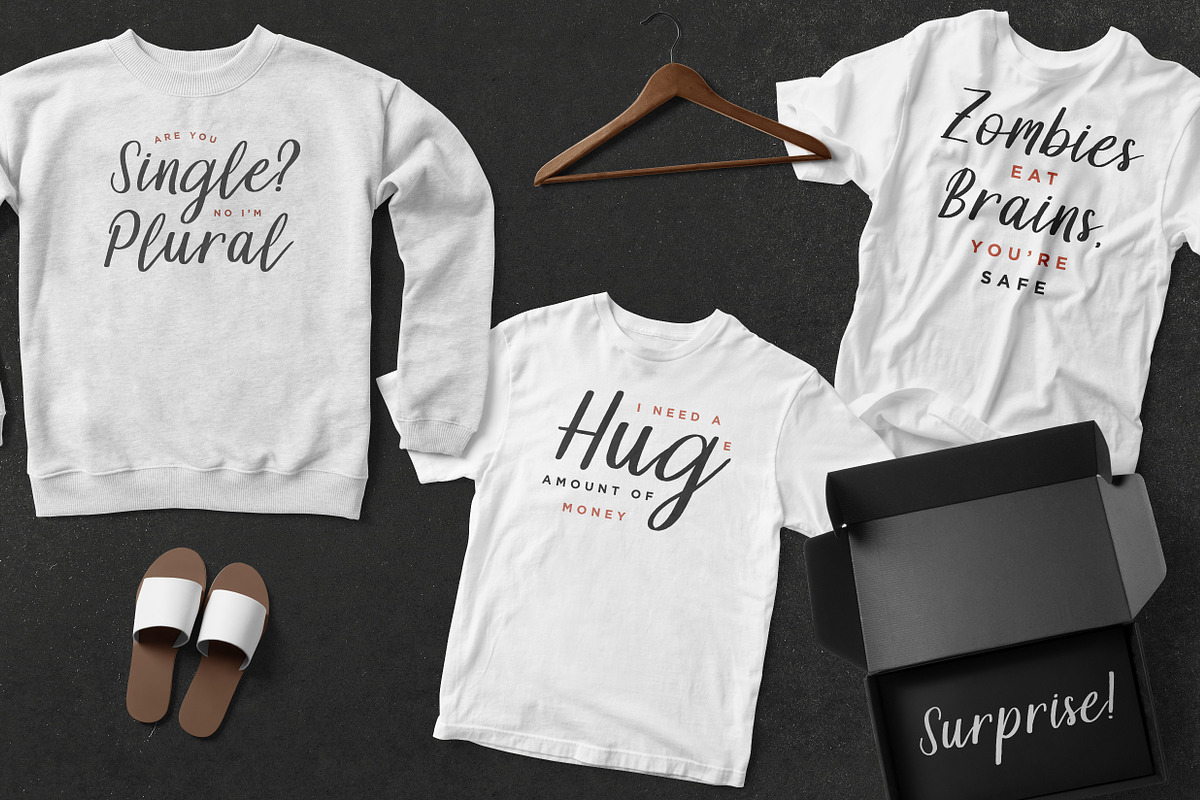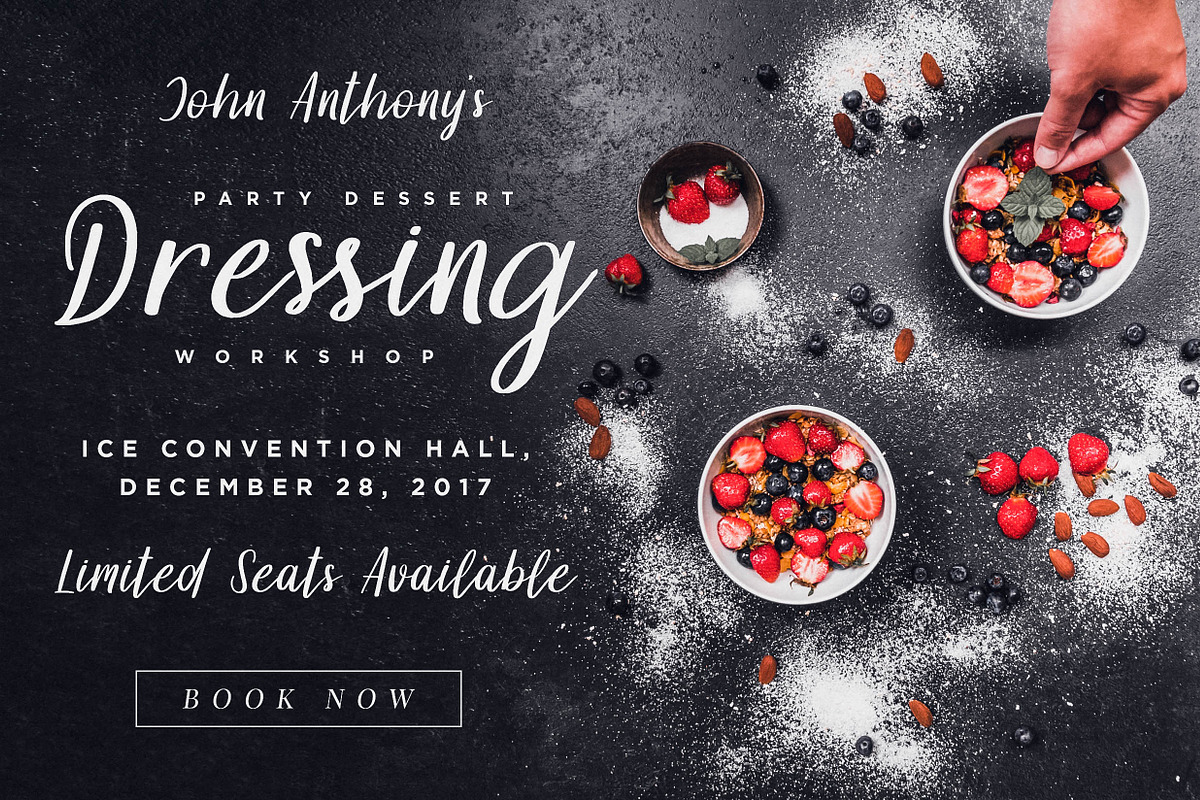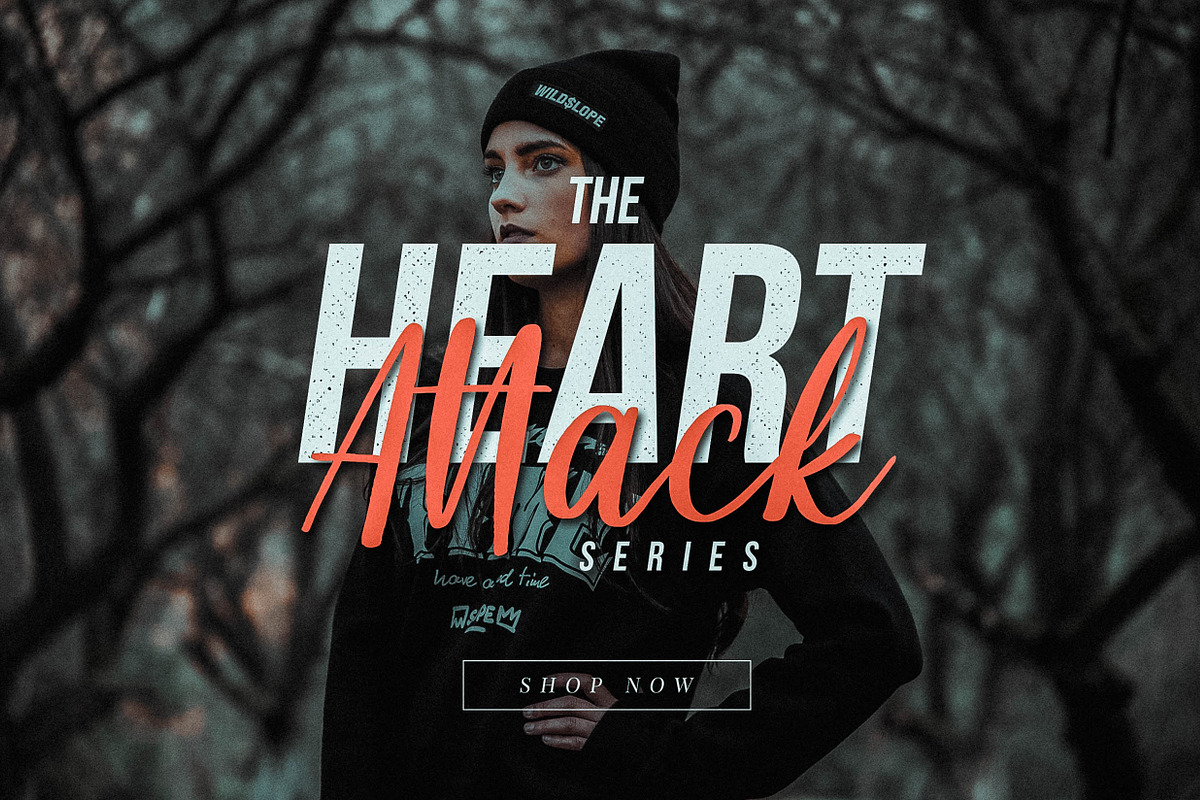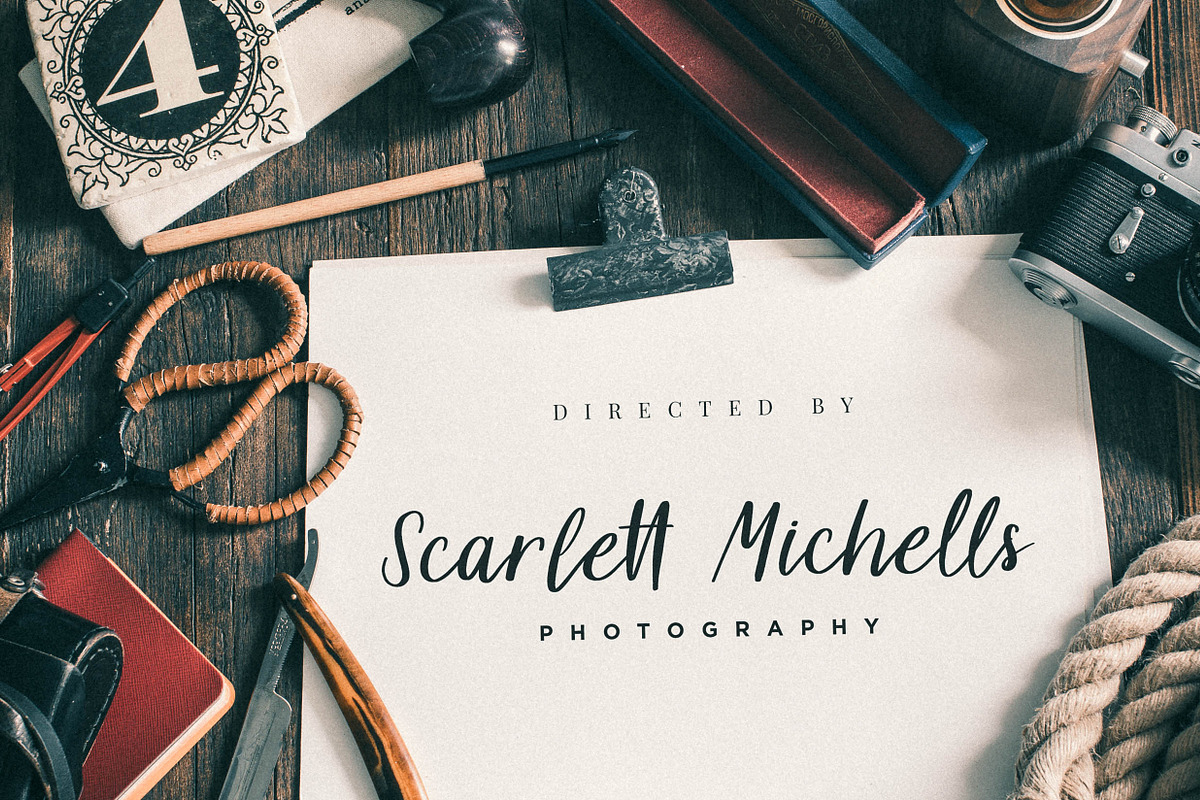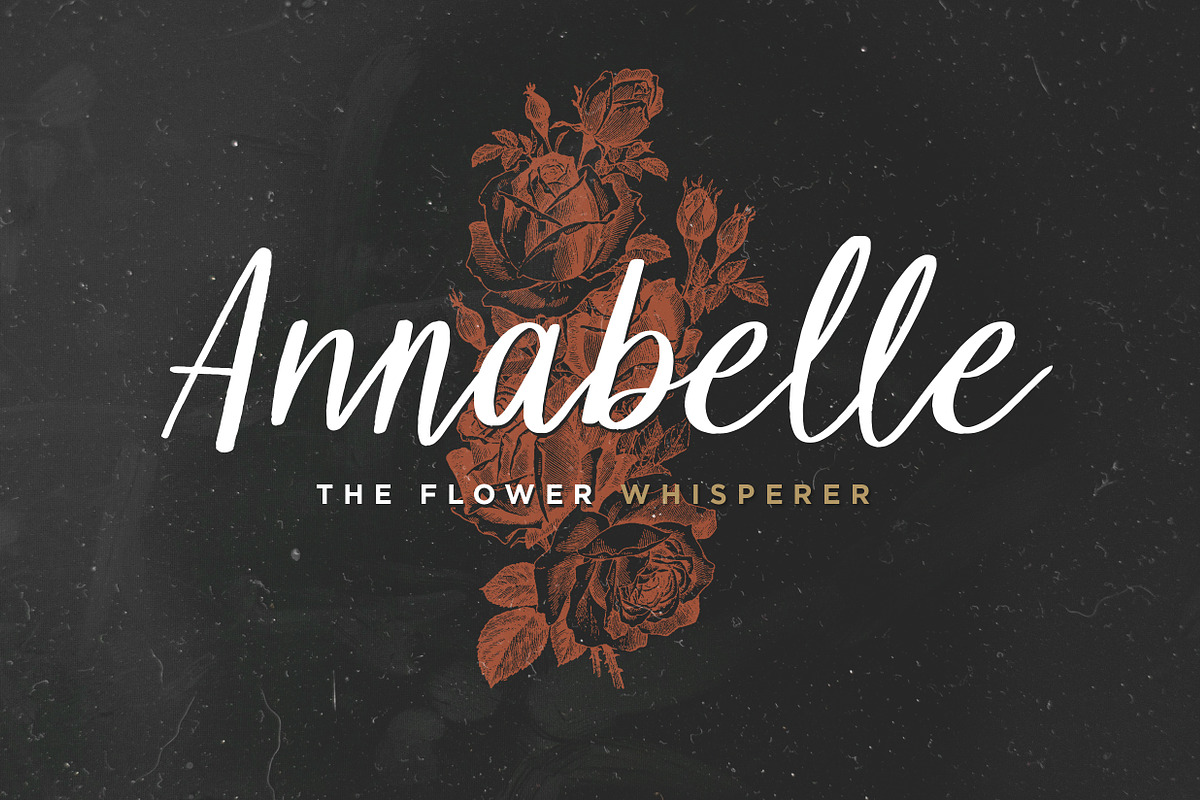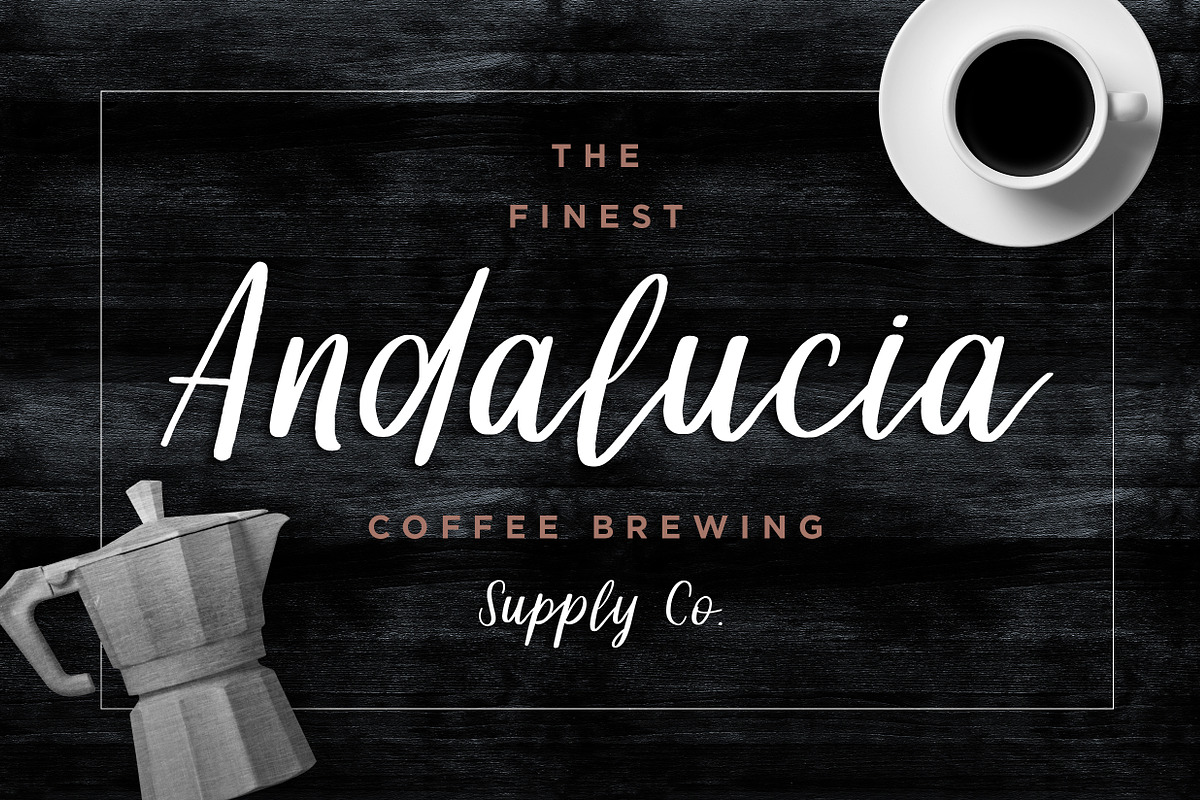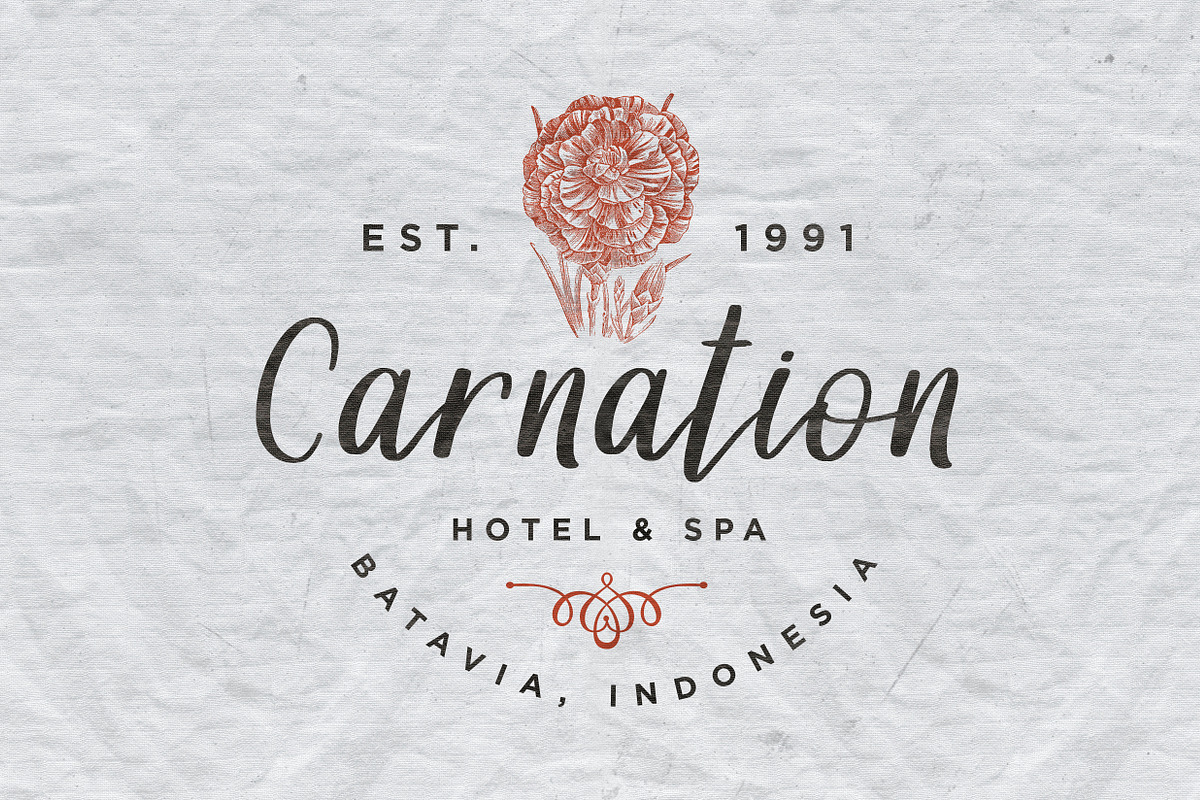
Dollyn Script - Casual Playful Font
I believe you were bored with "these kinda" fonts lately. I tell you something, you'll never avoid that. The vintage and feminine calligraphic script fonts has gone too wild nowadays. So here we are, providing what society wants.
Introducing Dollyn Script, a casual handwriting versatile script font with undoubtedly vintage vibes. Support multilanguages (check the display) and there's a ligatures feature for double letters to get the seamless handwriting feels on your design project.
That's it, i'll leave you confused by the similar choice of these kinda fonts in the market :)